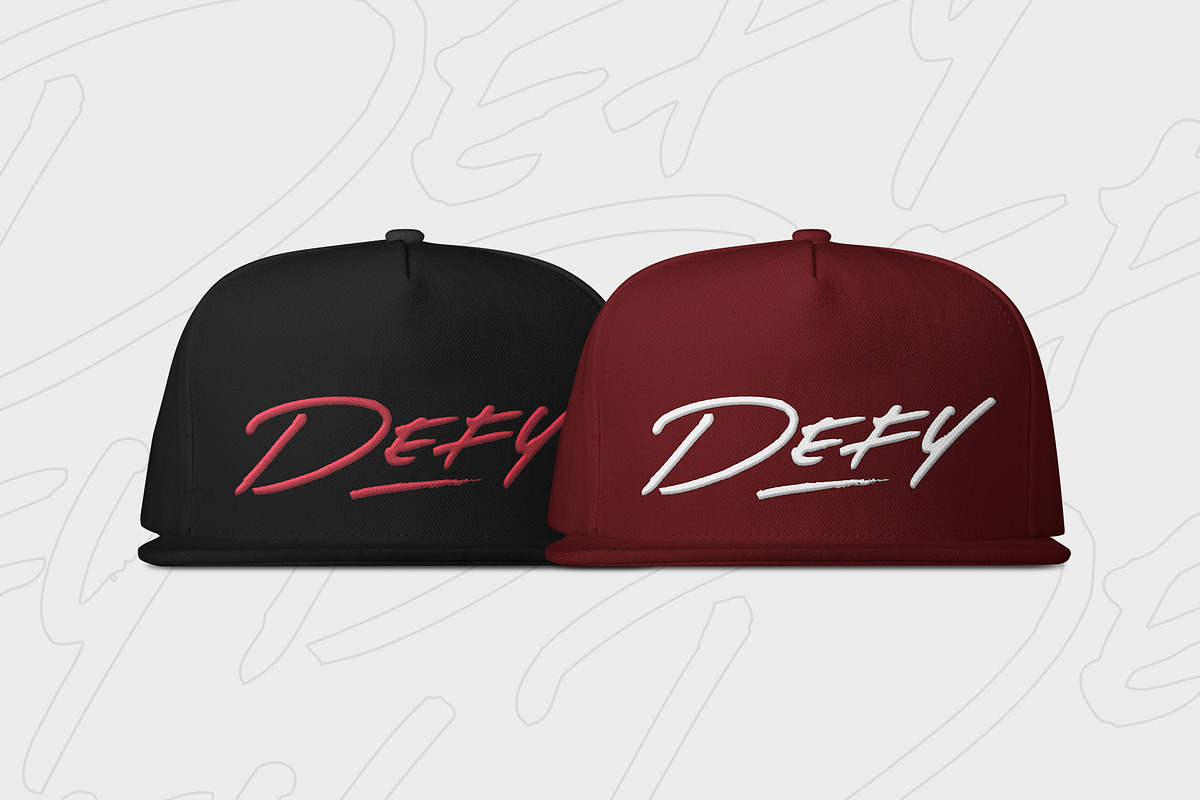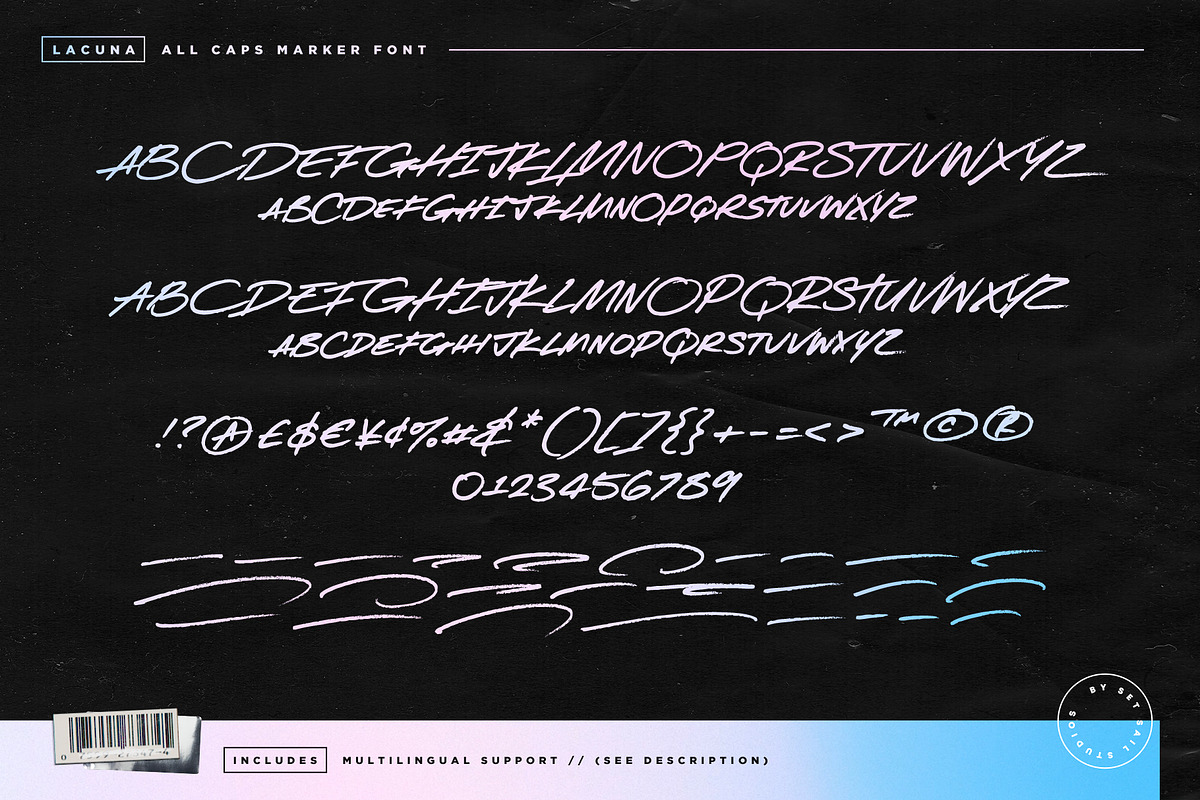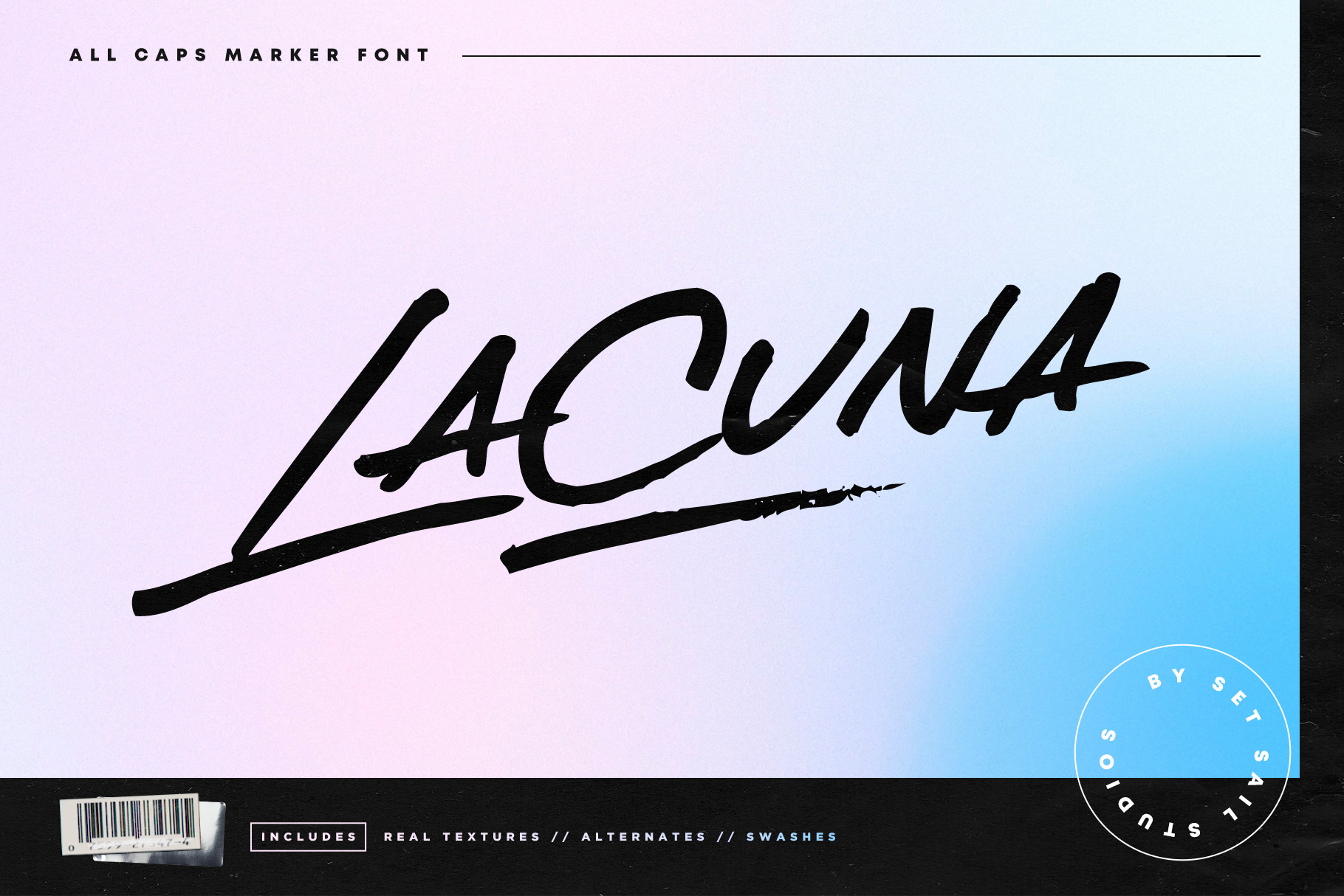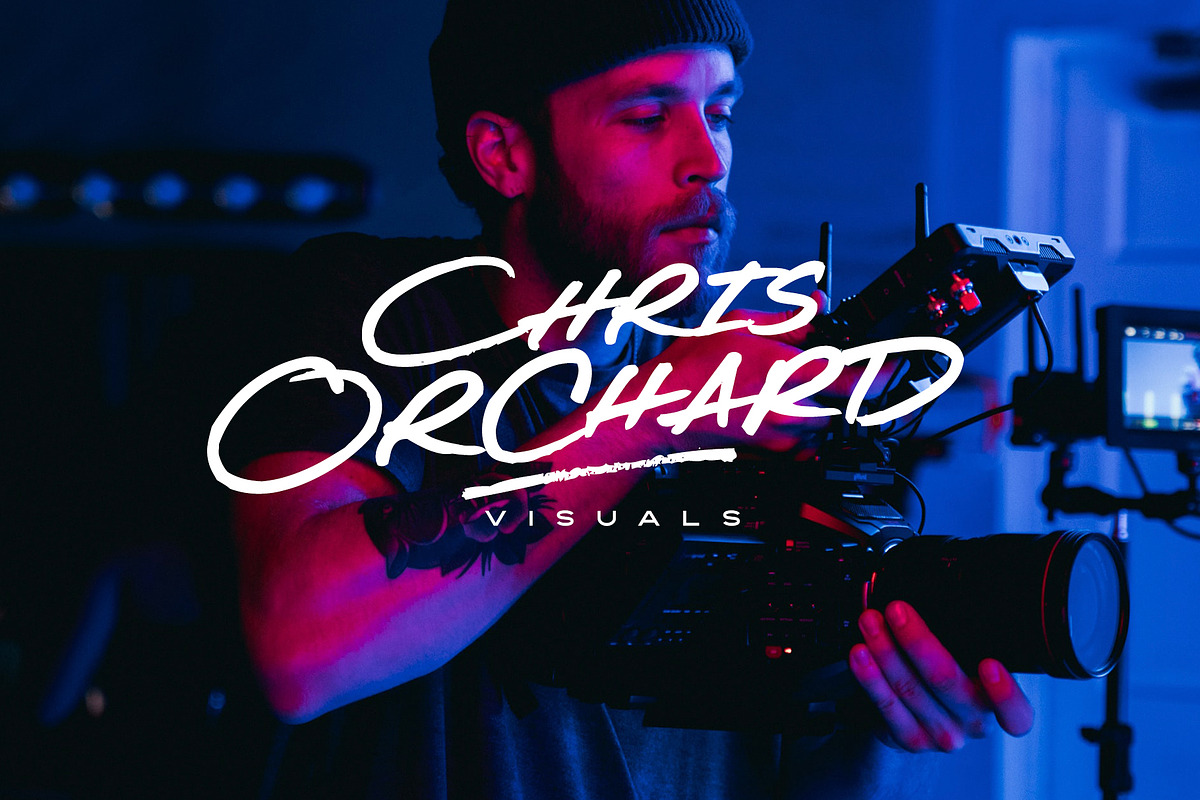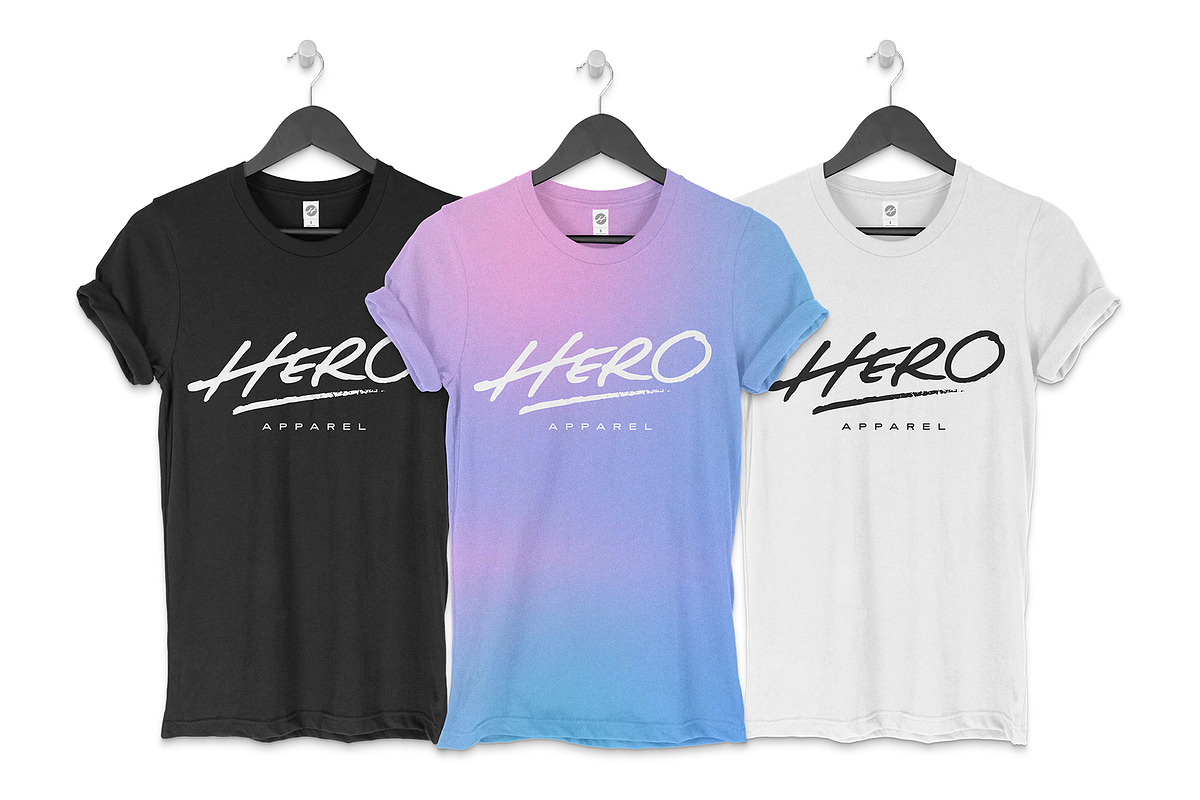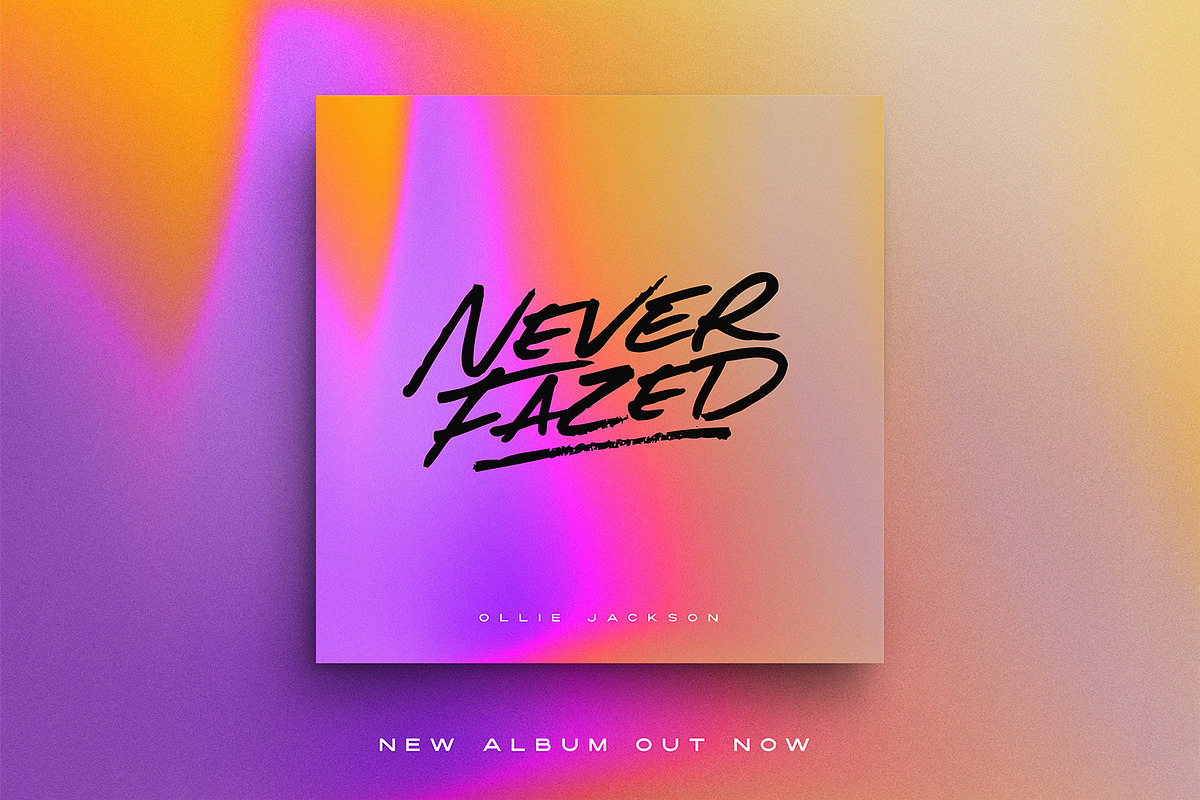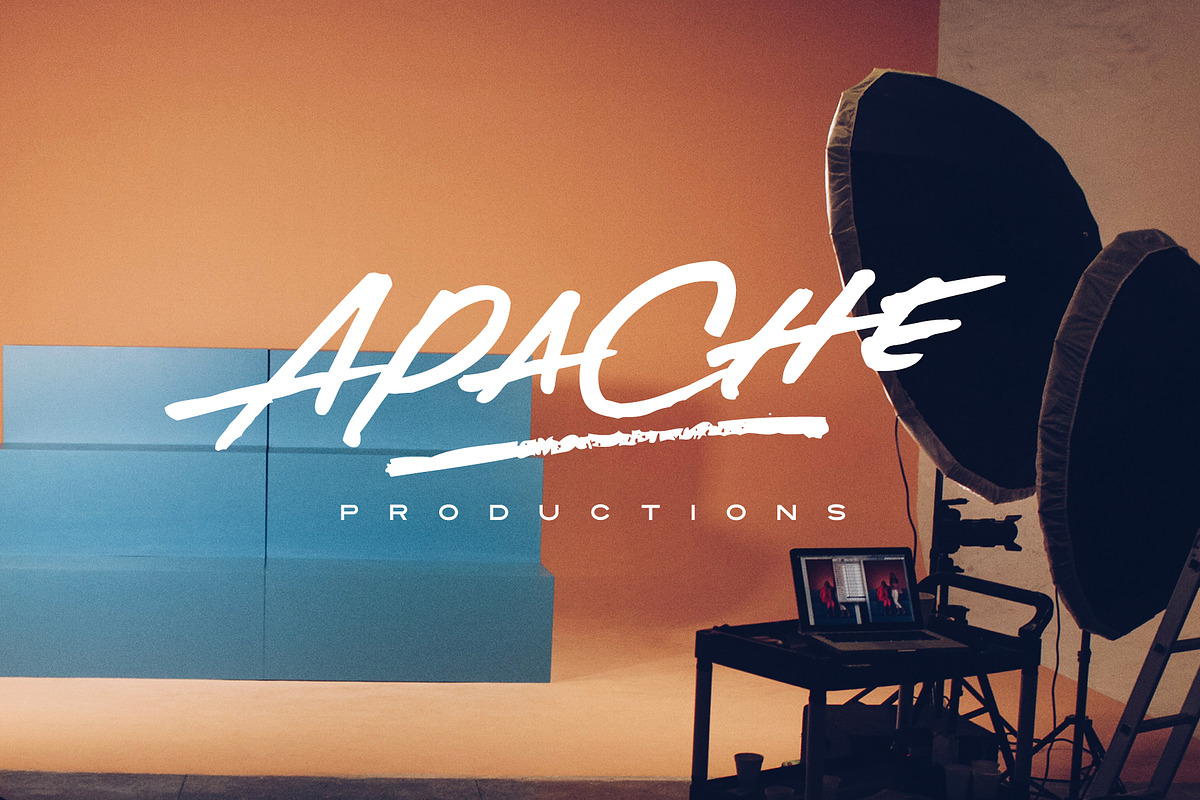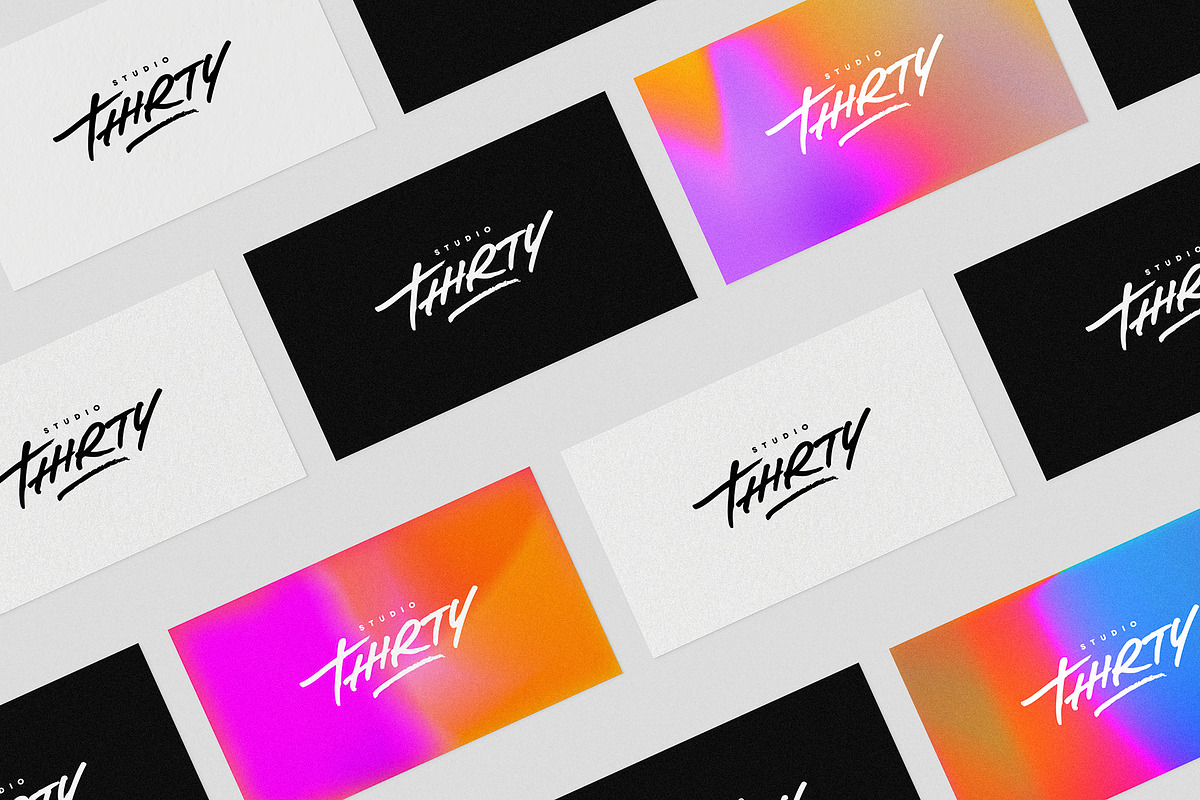
Lacuna Marker Font
Introducing the Lacuna marker font! Lacuna is a fresh & high energy all-caps font, hand-drawn with a marker pen to maintain realistic textures. It's a great choice for trendy signature-style logos, merchandise, posters, music artwork and more. As well as a full alternate set of upper & lowercase characters, Lacuna also includes a set of 26 swashes, ideal for underlining your Lacuna lettering and adding that extra 'custom' style.